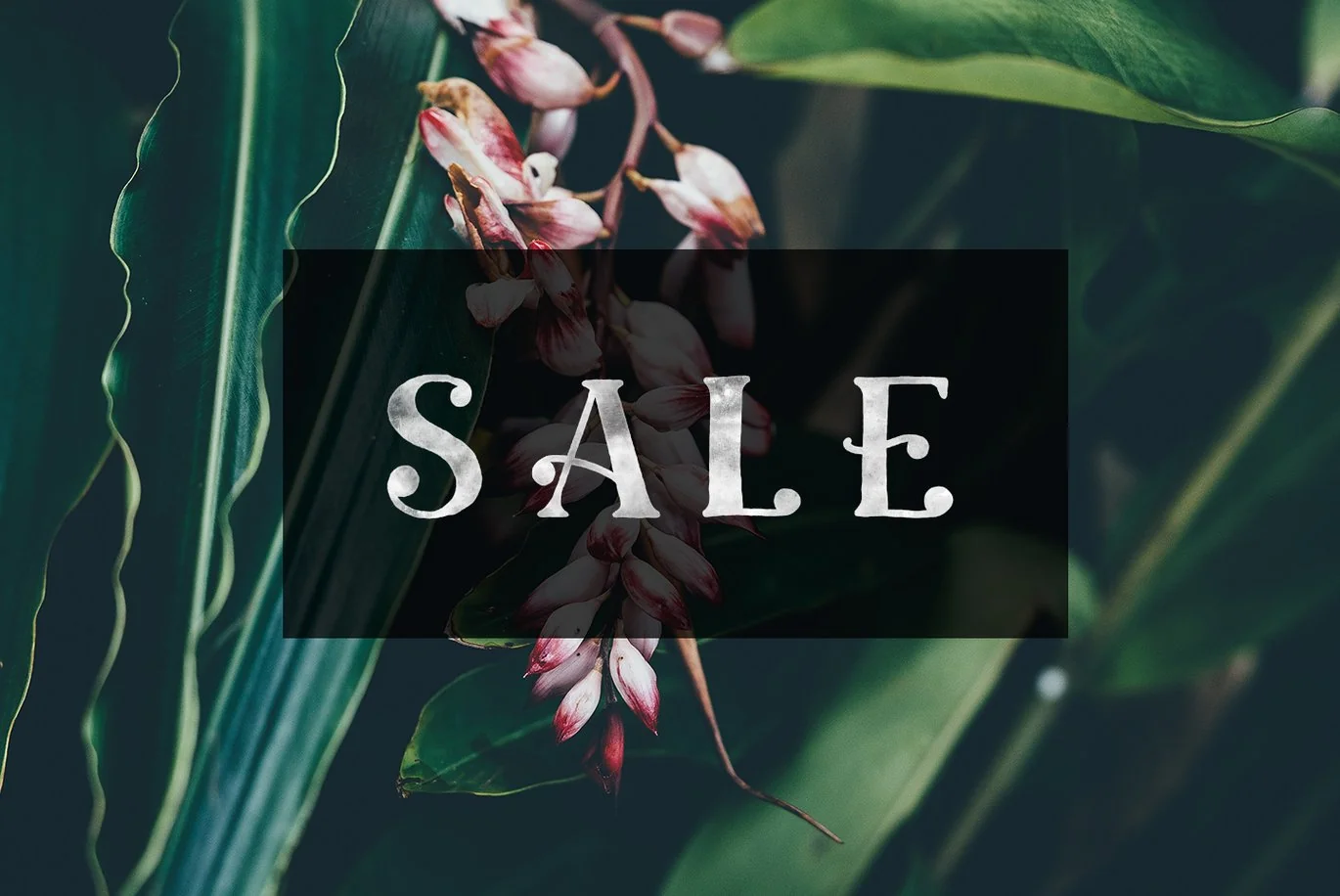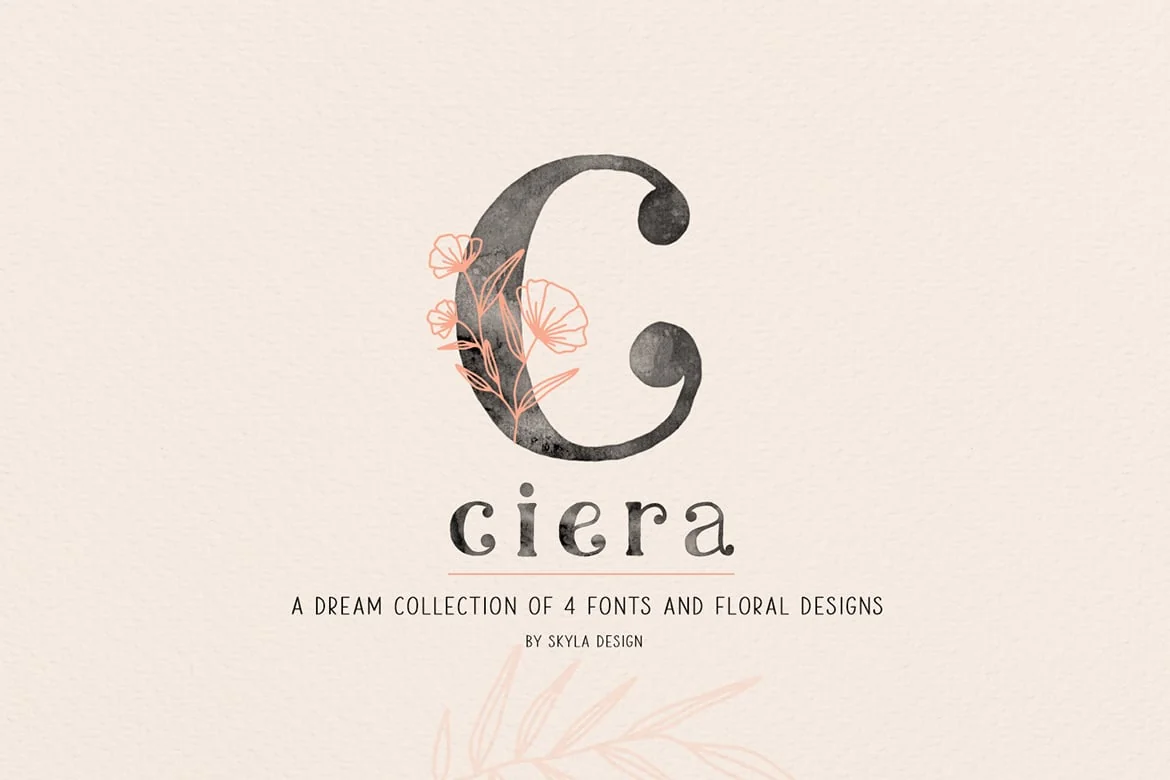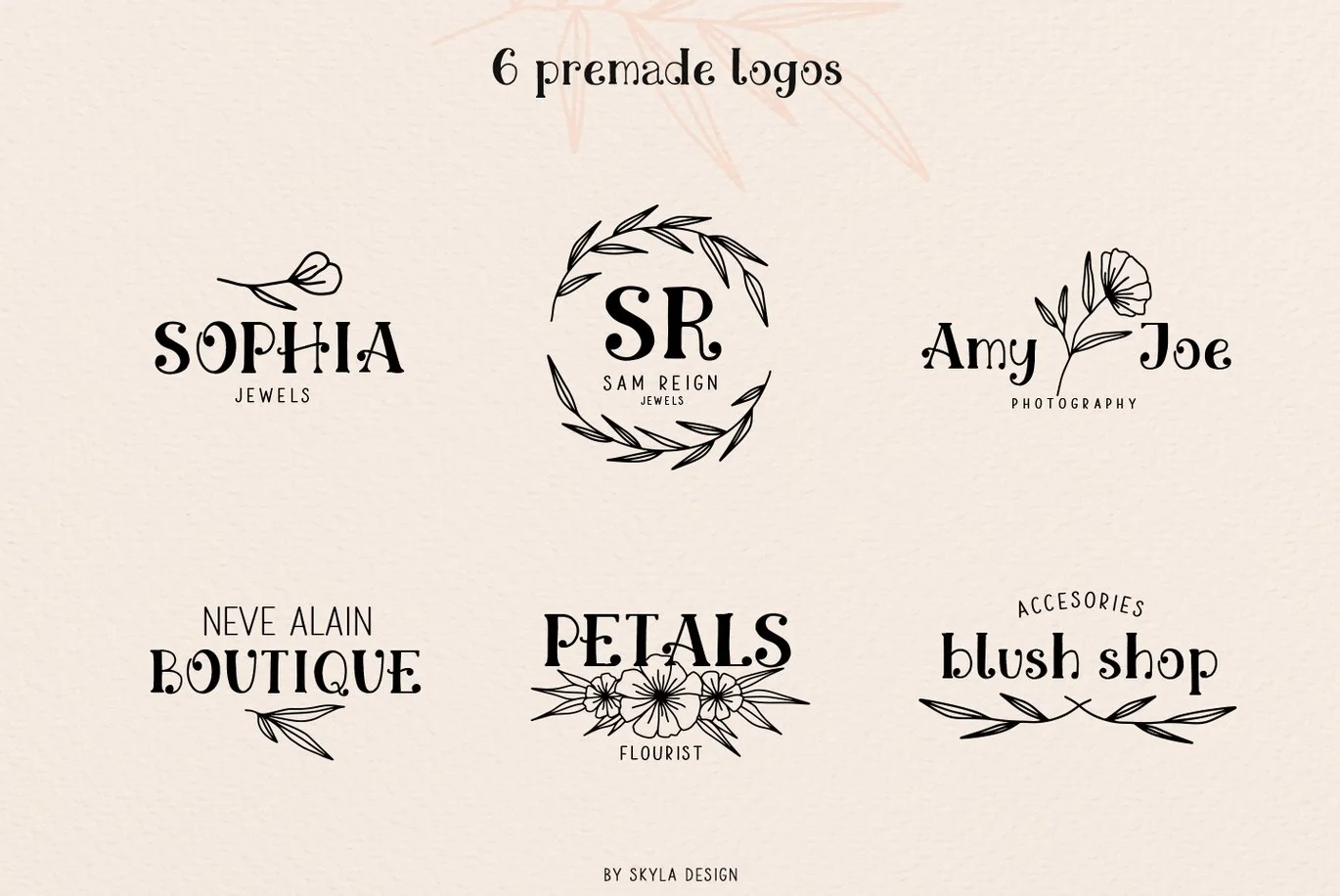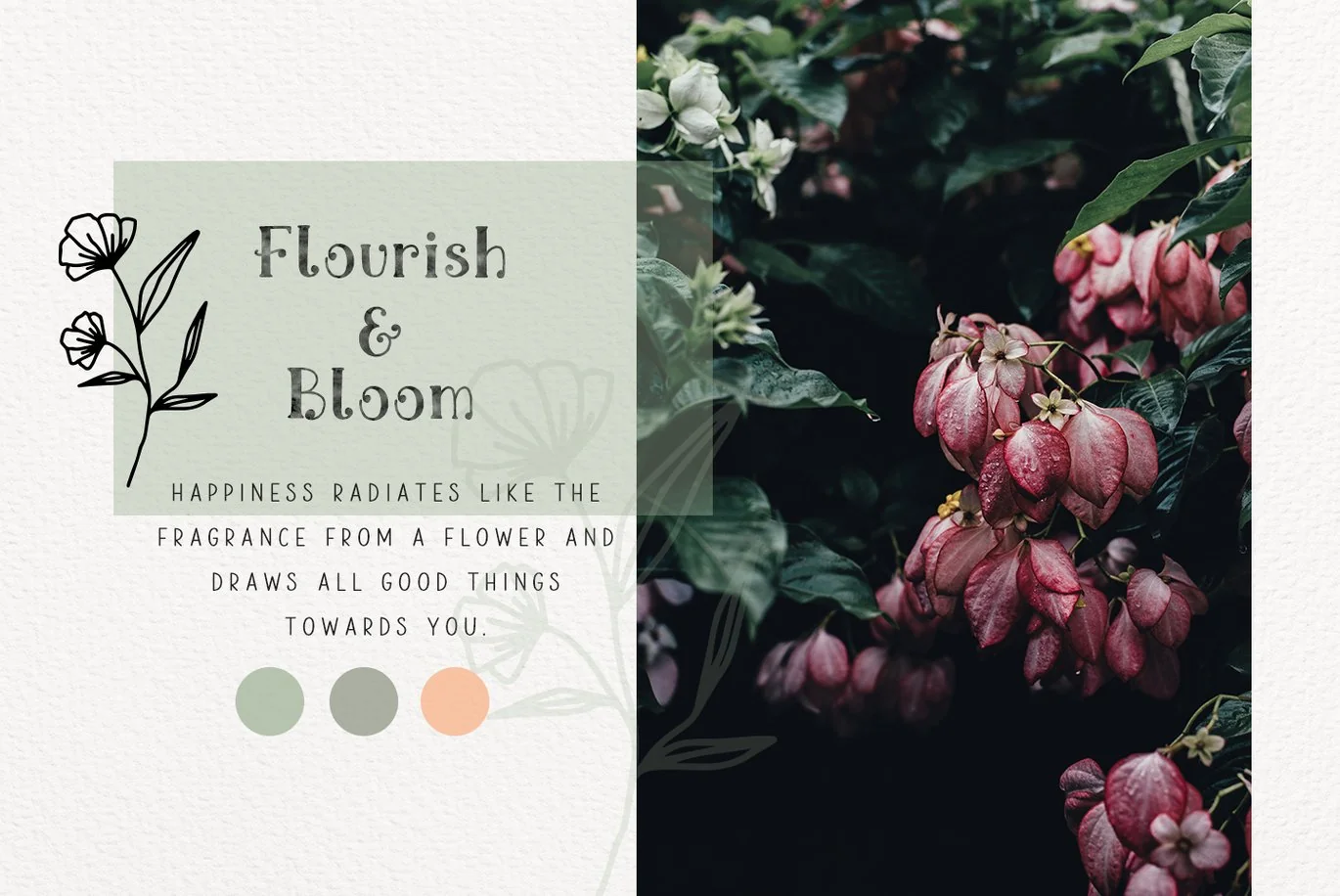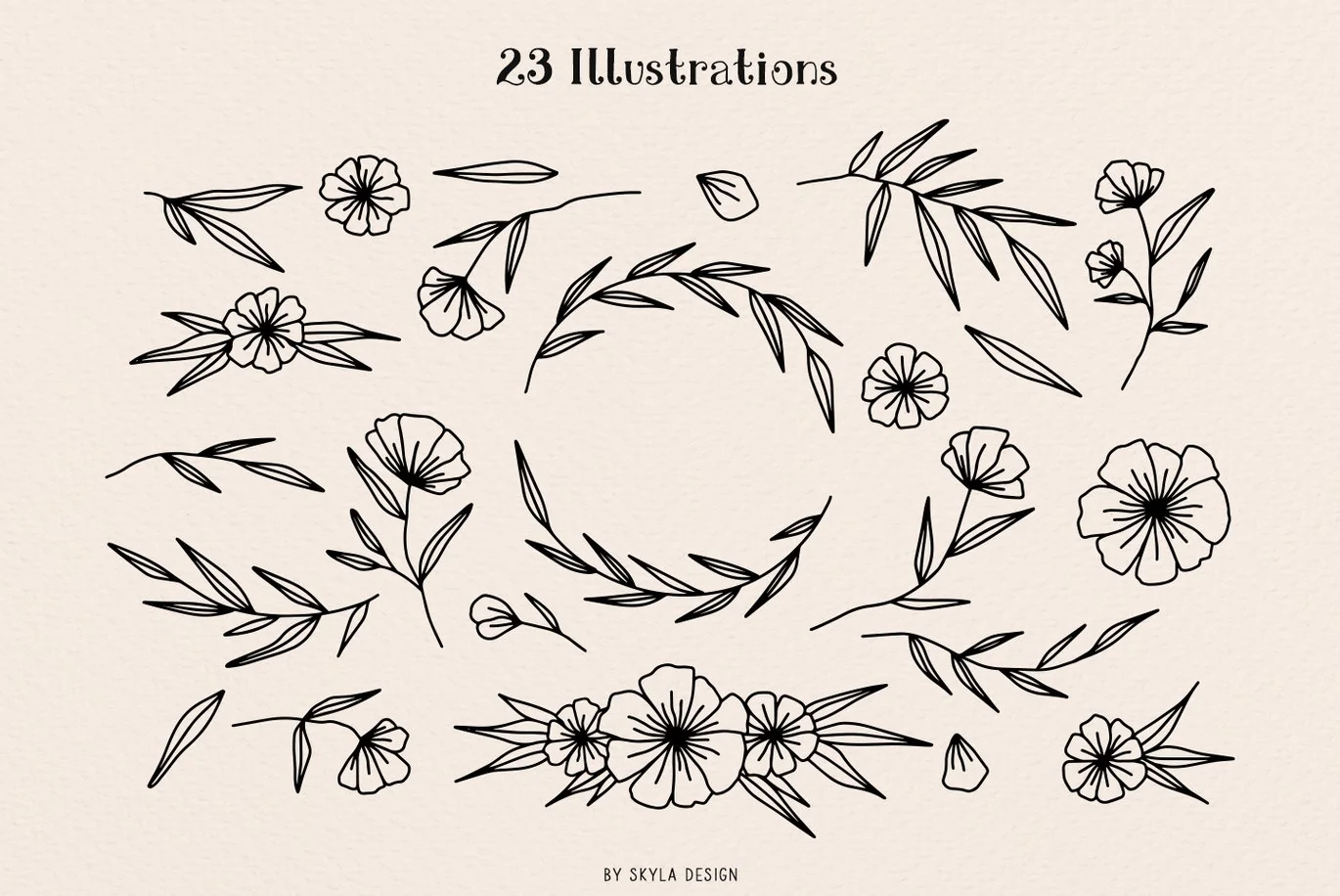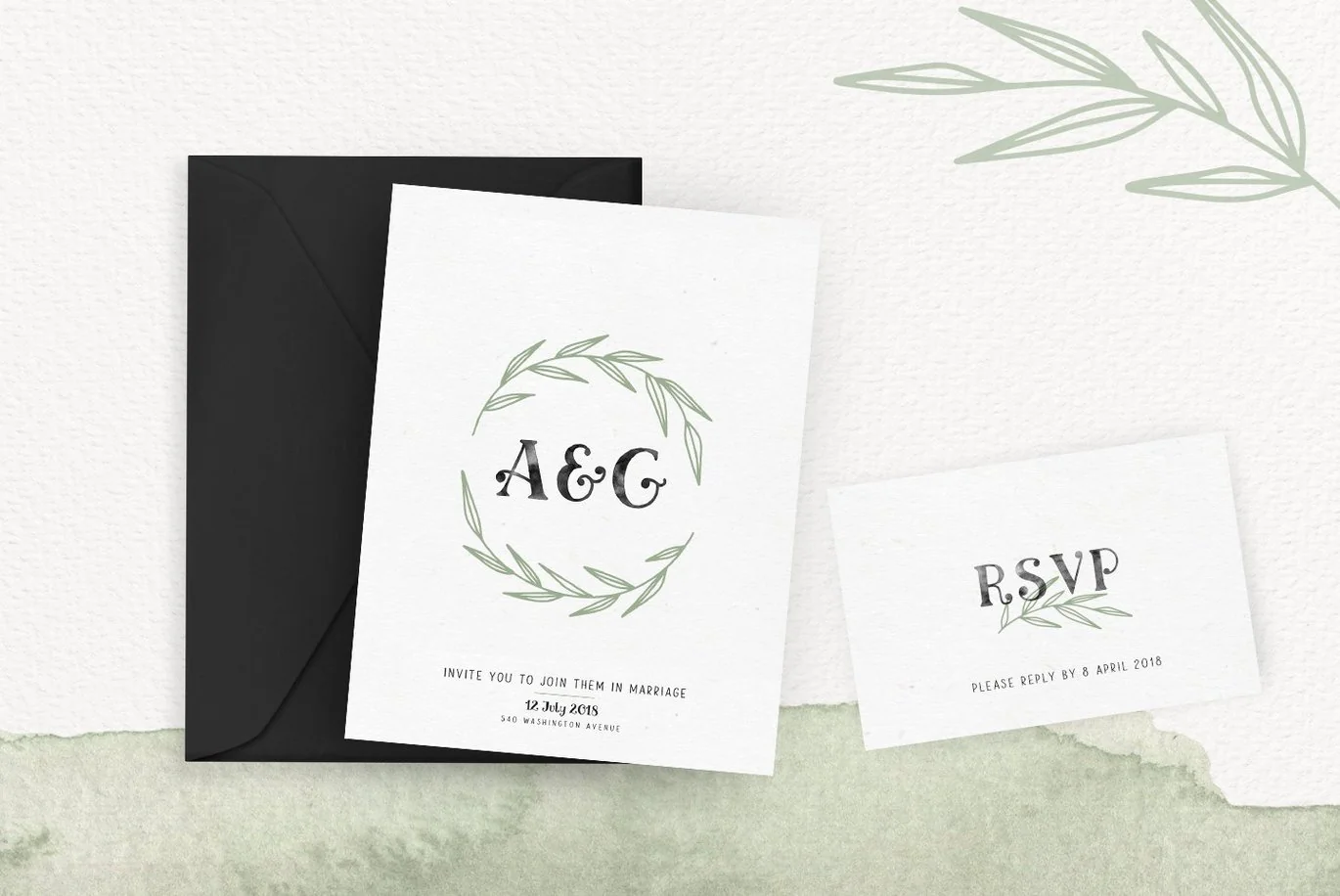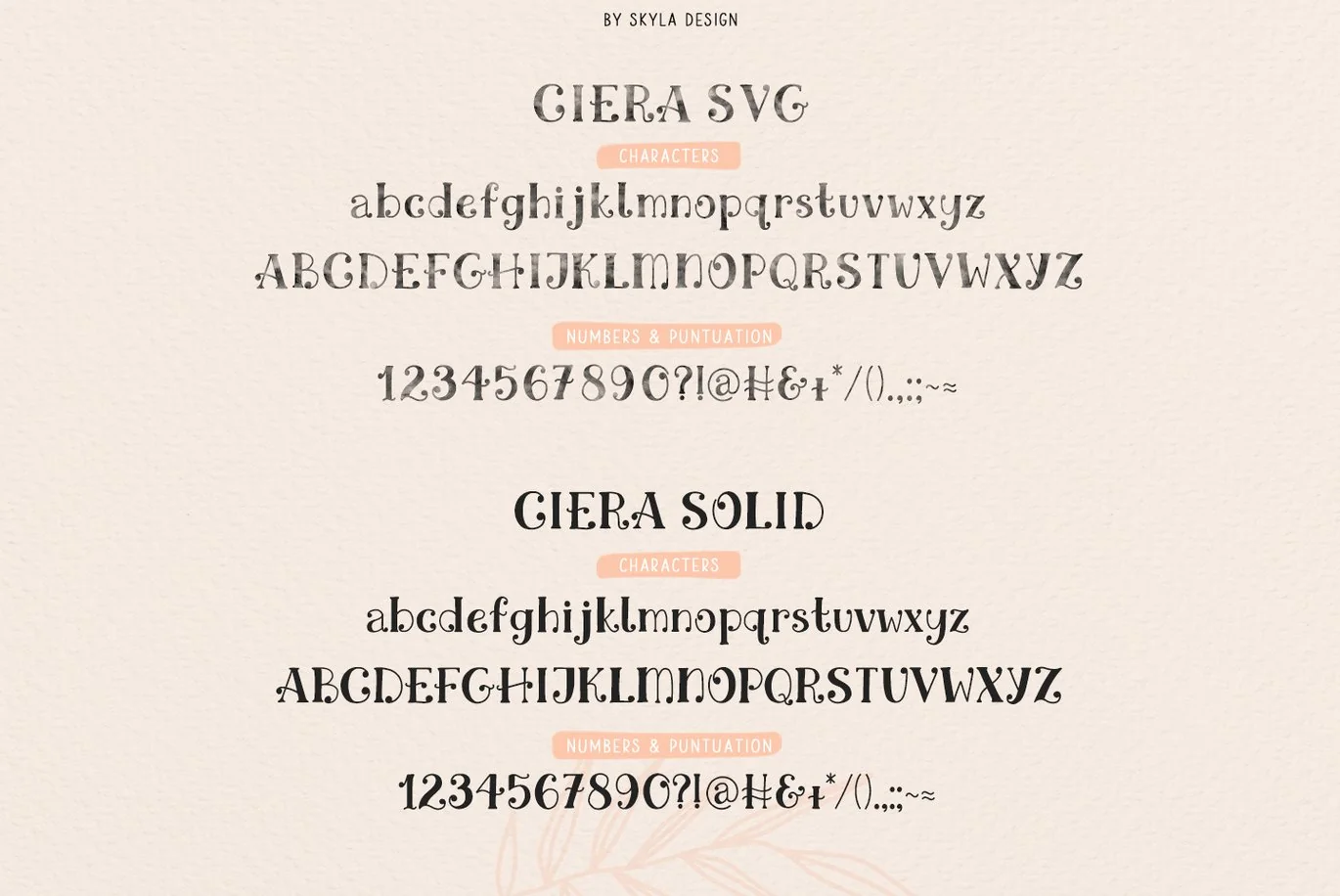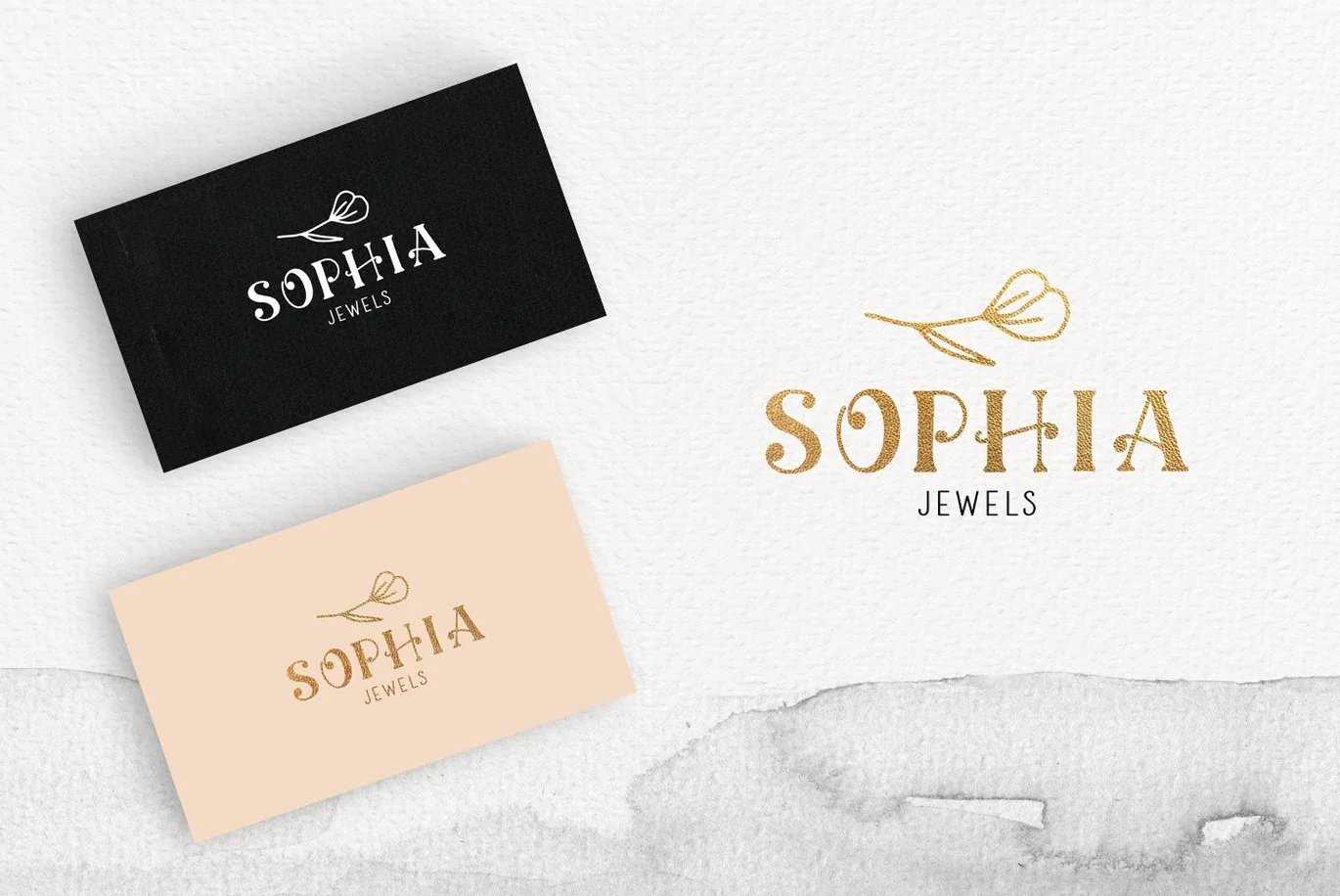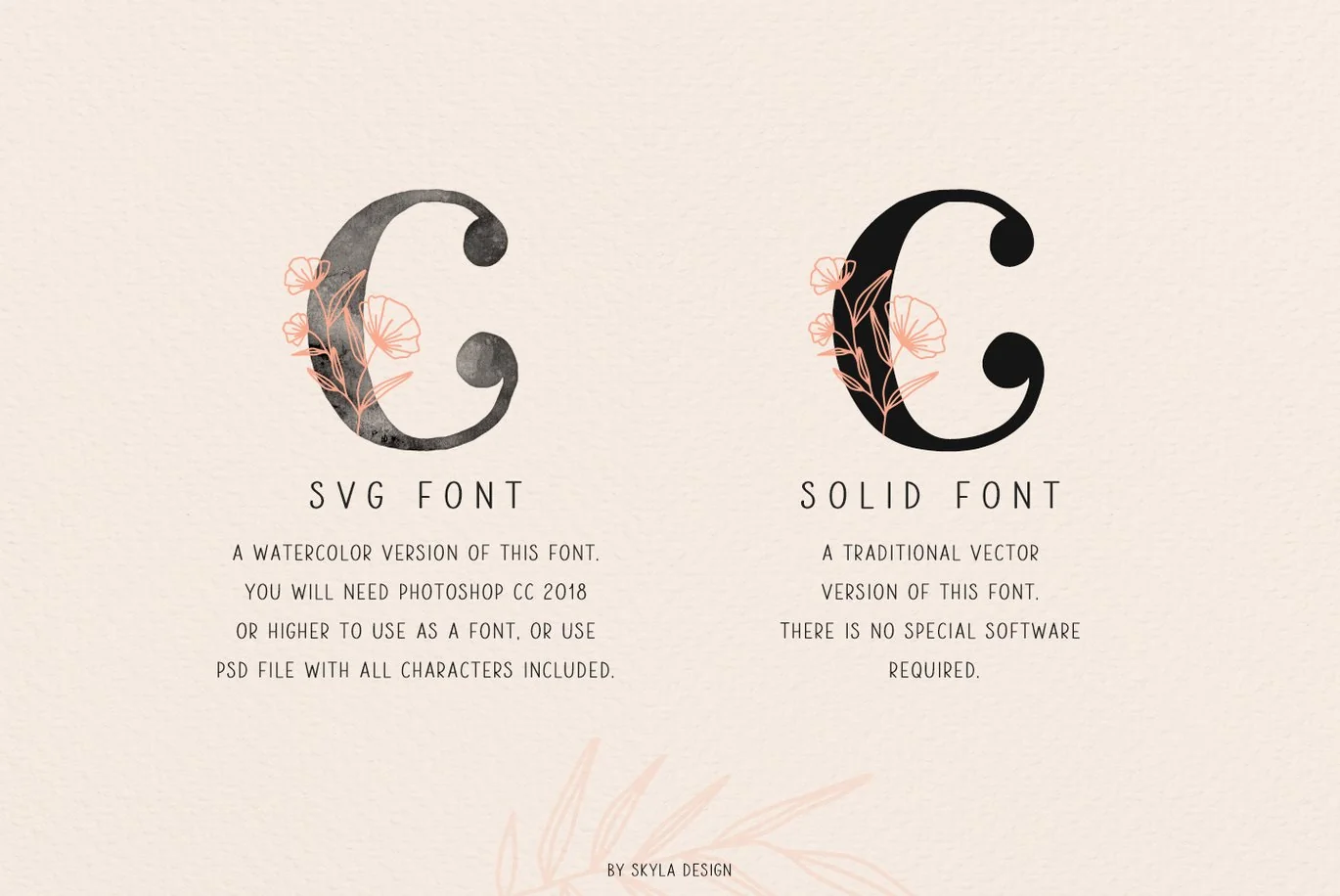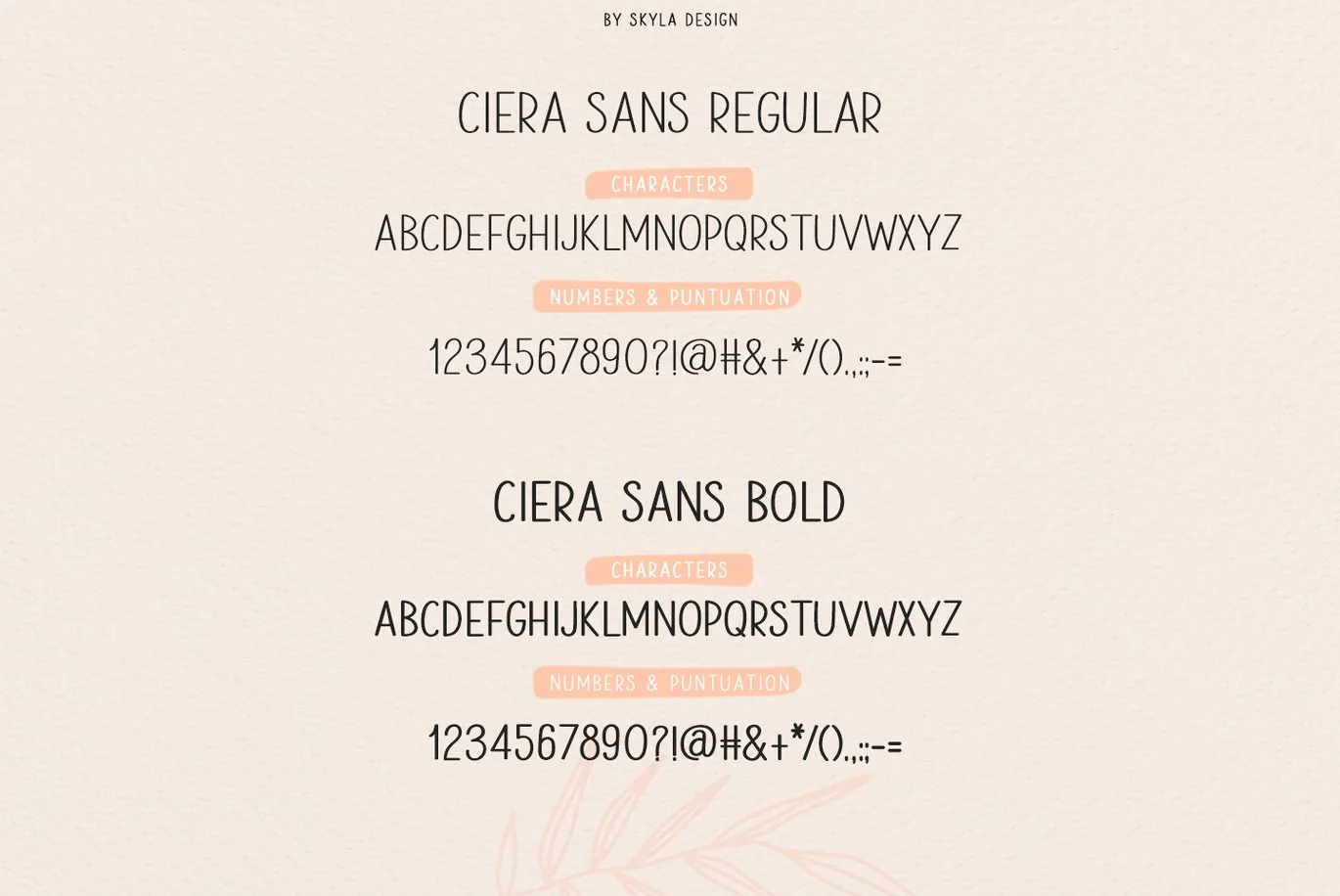
Ciera watercolor svg font, florals & logos
A dream collection of 4 fonts, 23 floral illustrations & 6 premade logos. Ciera comes in both an SVG font with all that lovely watercolor texture included & also comes in a solid version and a sans font that pairs perfectly with it. Use the premade logos and gorgeous illustrations to create wedding designs, monograms, mood boards & any other lovely projects you are working on.
Ciera SVG Font
A watercolor version of this font where all that lovely watercolor texture is included.
Ciera Solid Font
A traditional vector version of this font. There is no special software needed.
Ciera Sans Regular & Bold Font
An uppercase font in Regular & Bold that pairs perfectly with the SVG and solid version of Ciera.